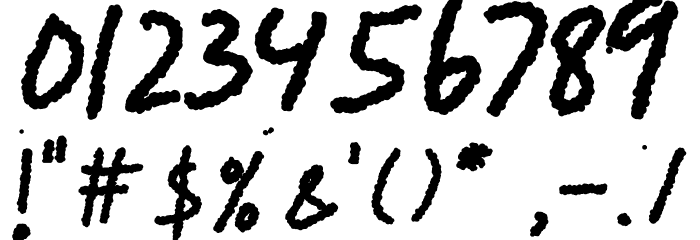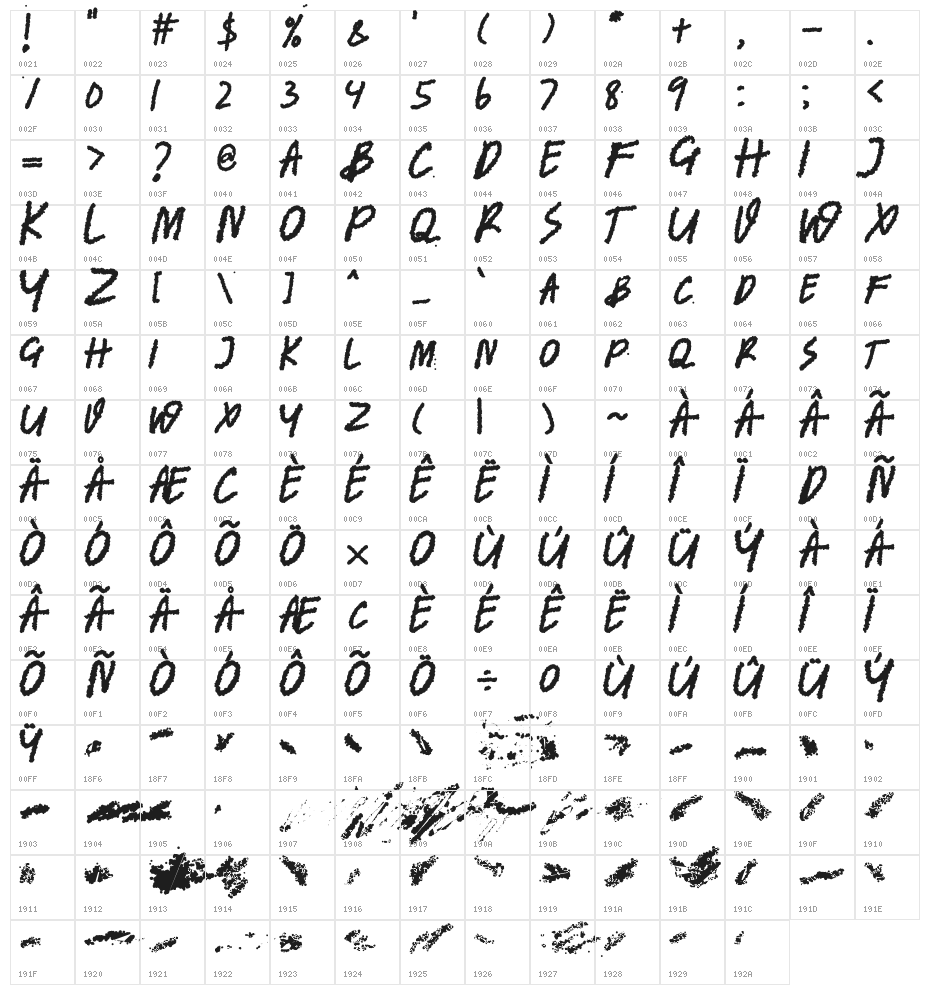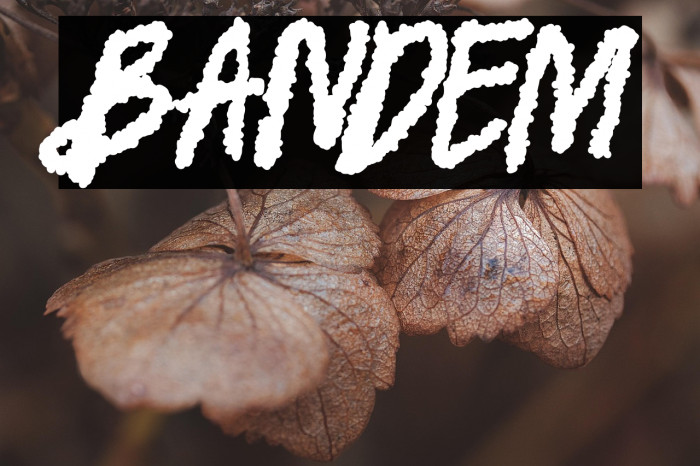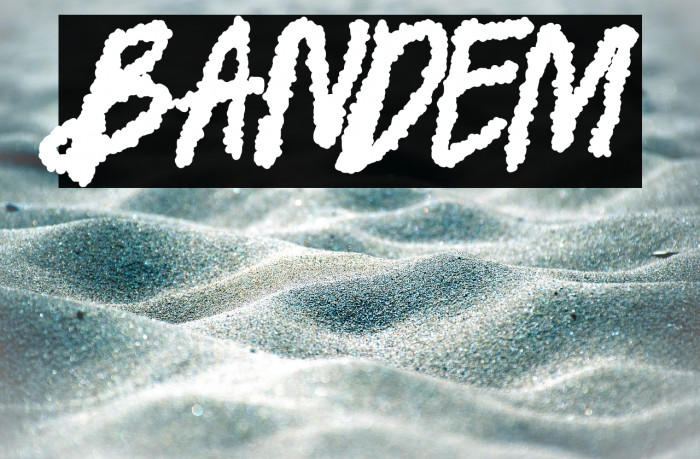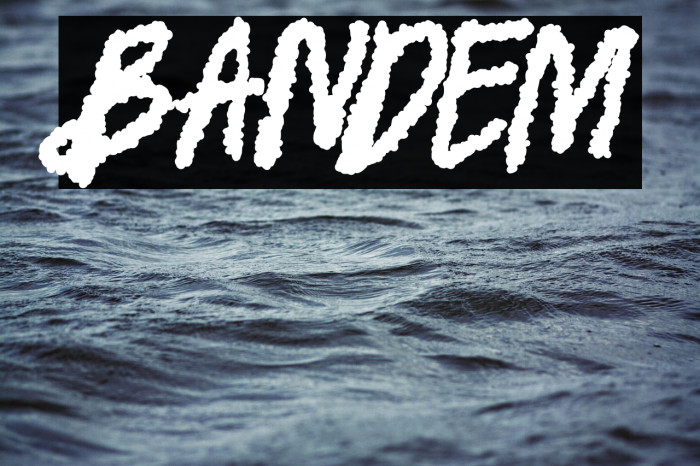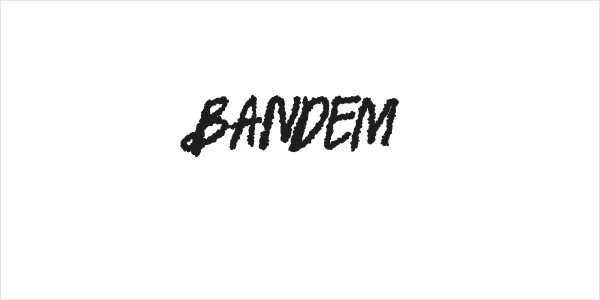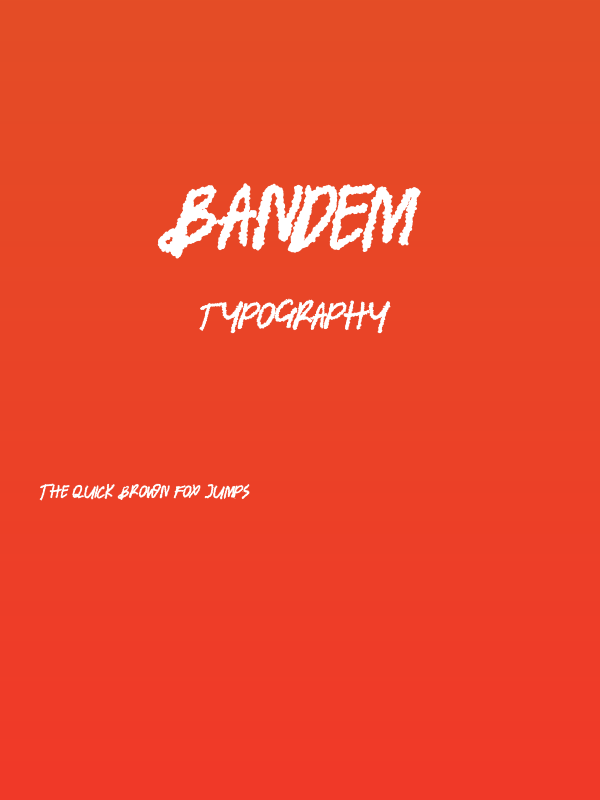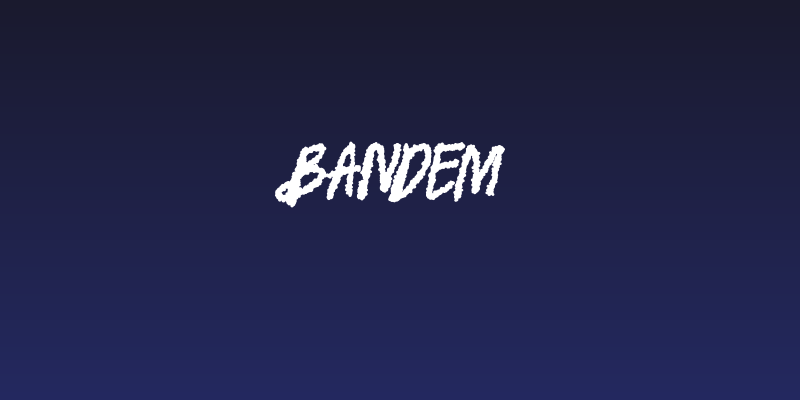
BANDEM Font
BANDEM Description
This font features a bold, handwritten style with a dynamic and energetic appearance. The letters are slightly slanted, giving it a casual yet impactful look. The strokes are thick and textured, resembling a marker or brush pen, which adds a sense of movement and personality. The uppercase and lowercase letters maintain a consistent style, while the numbers and special characters complement the overall design. This font is ideal for projects that require a personal touch or an informal, creative vibe.
| Overall Style | Casual, Creative |
| Proposed Projects | Ideal for greeting cards, posters, branding, and social media graphics. |